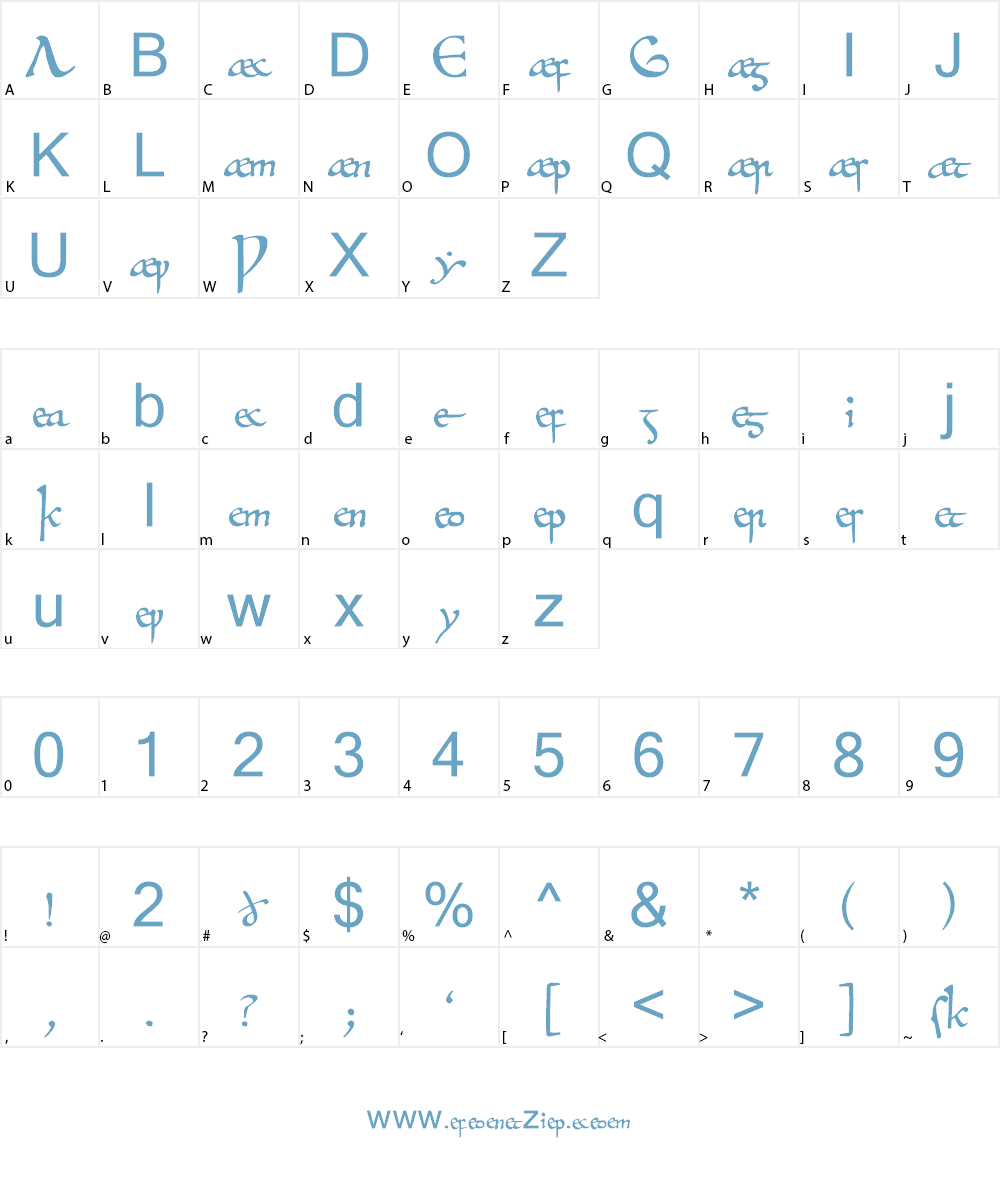
fonts for Old English and Anglo-Saxon scholars (or just someone who likes the decorative Anglo-Saxon caps); Saxon/OE fonts include insular r and s, yogh, thorn, and other specialist letters. Thomas Jefferson avidly studied Anglo-Saxon and was very keen on its inclusion in the curriculum of the University of Virginia, which he founded, and which is where these fonts were produced.